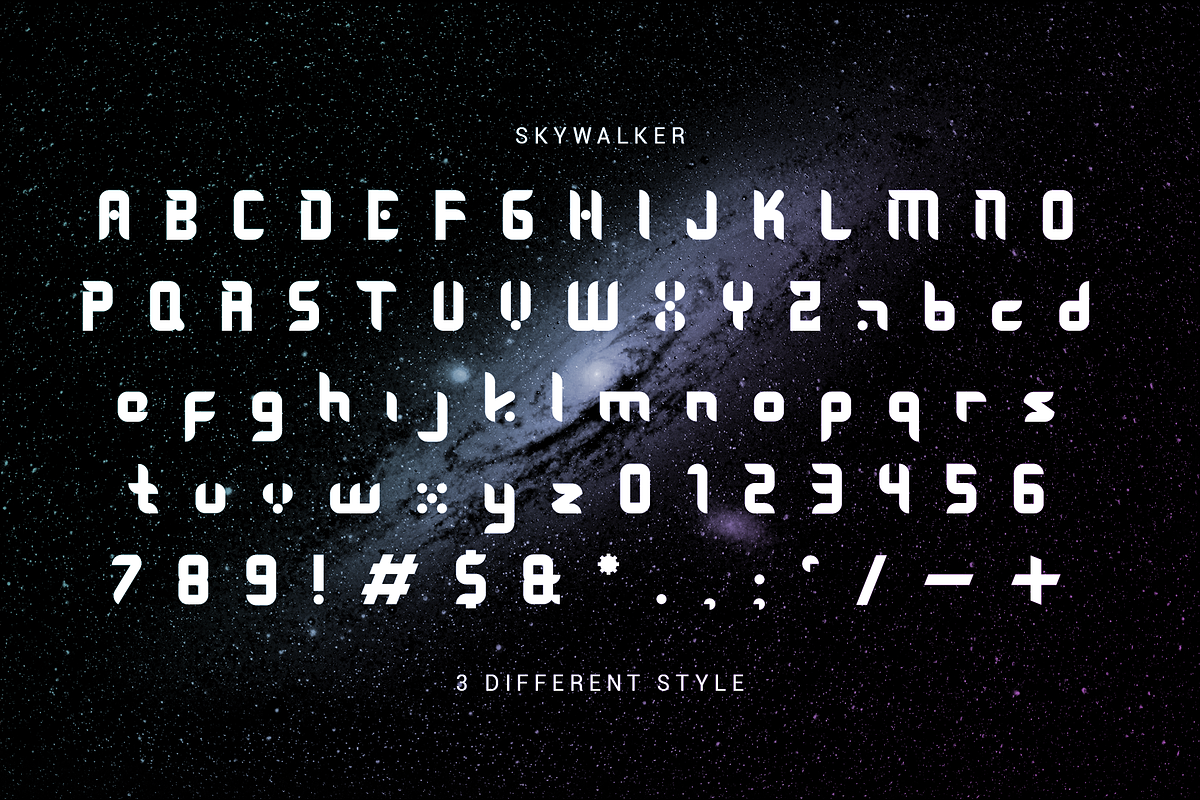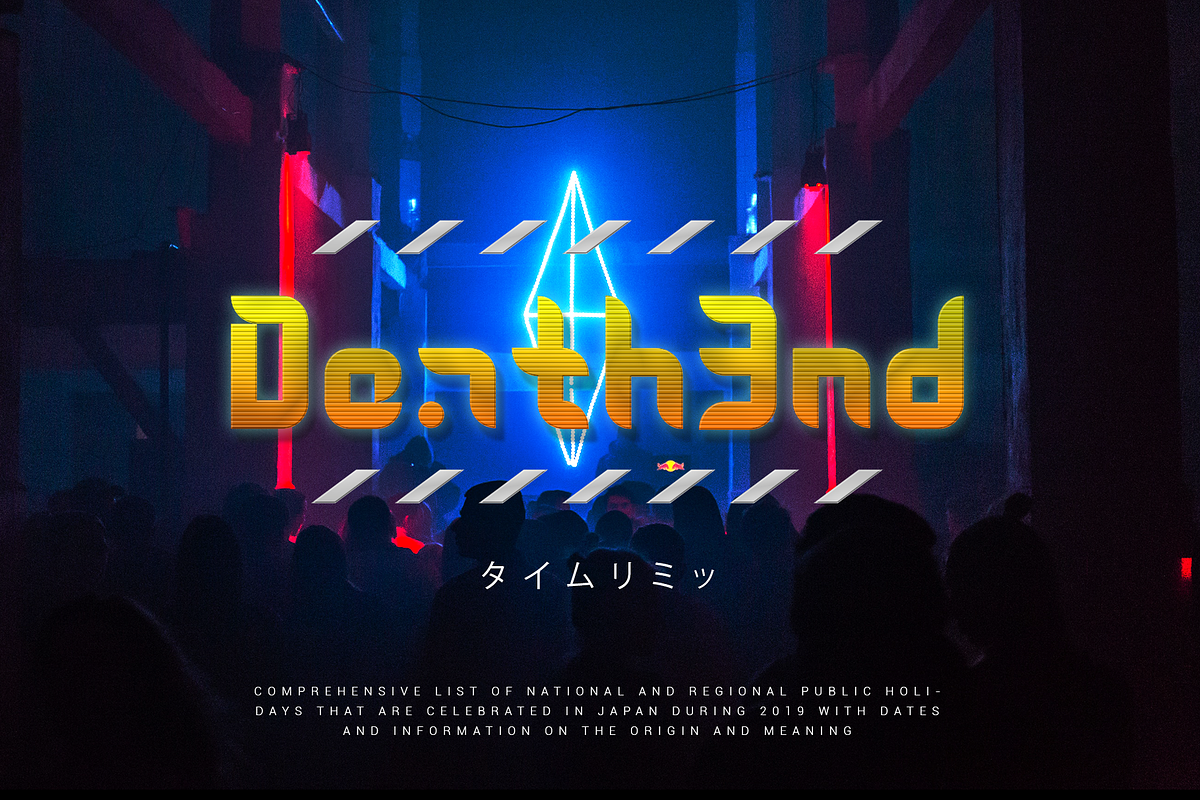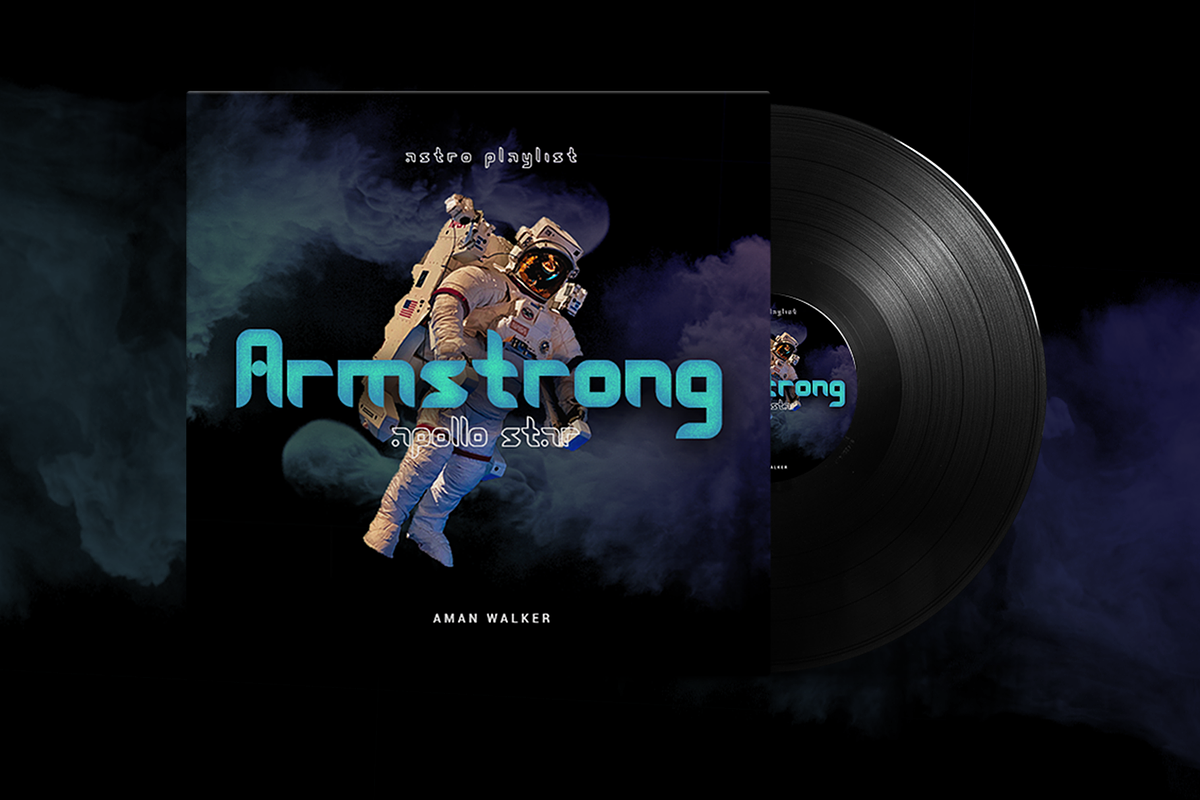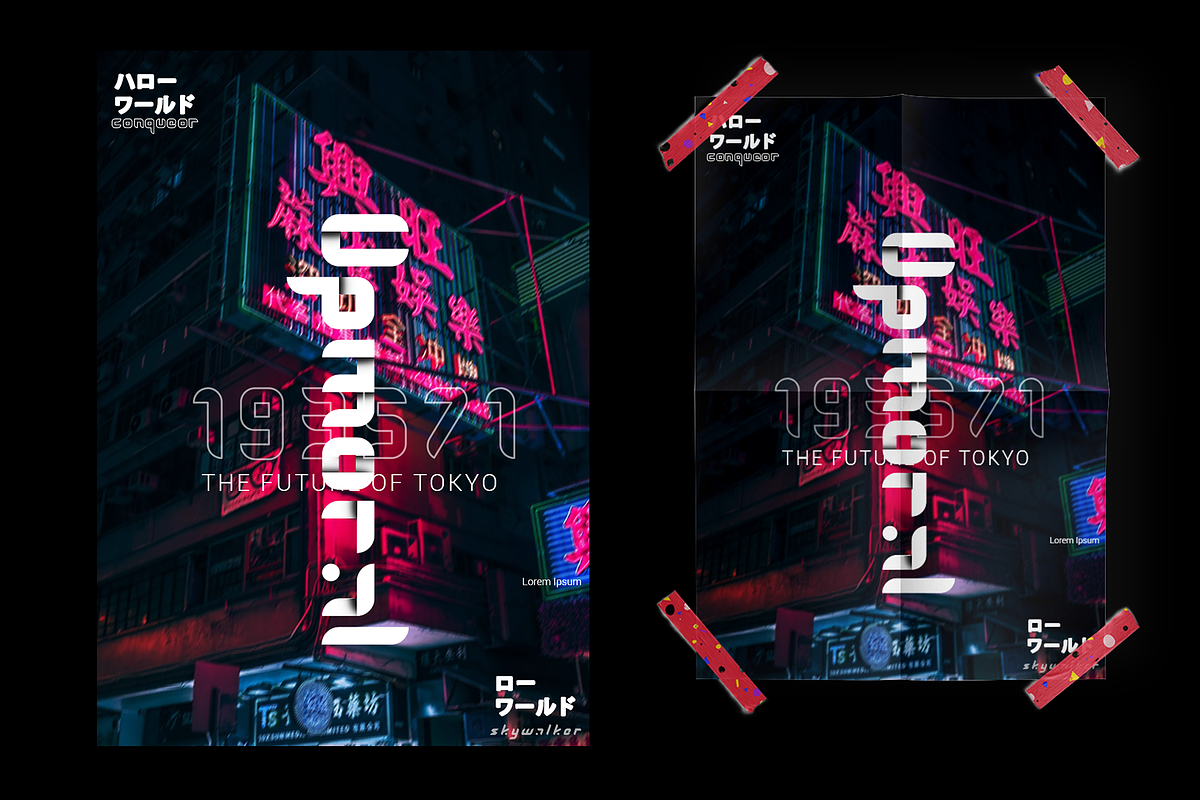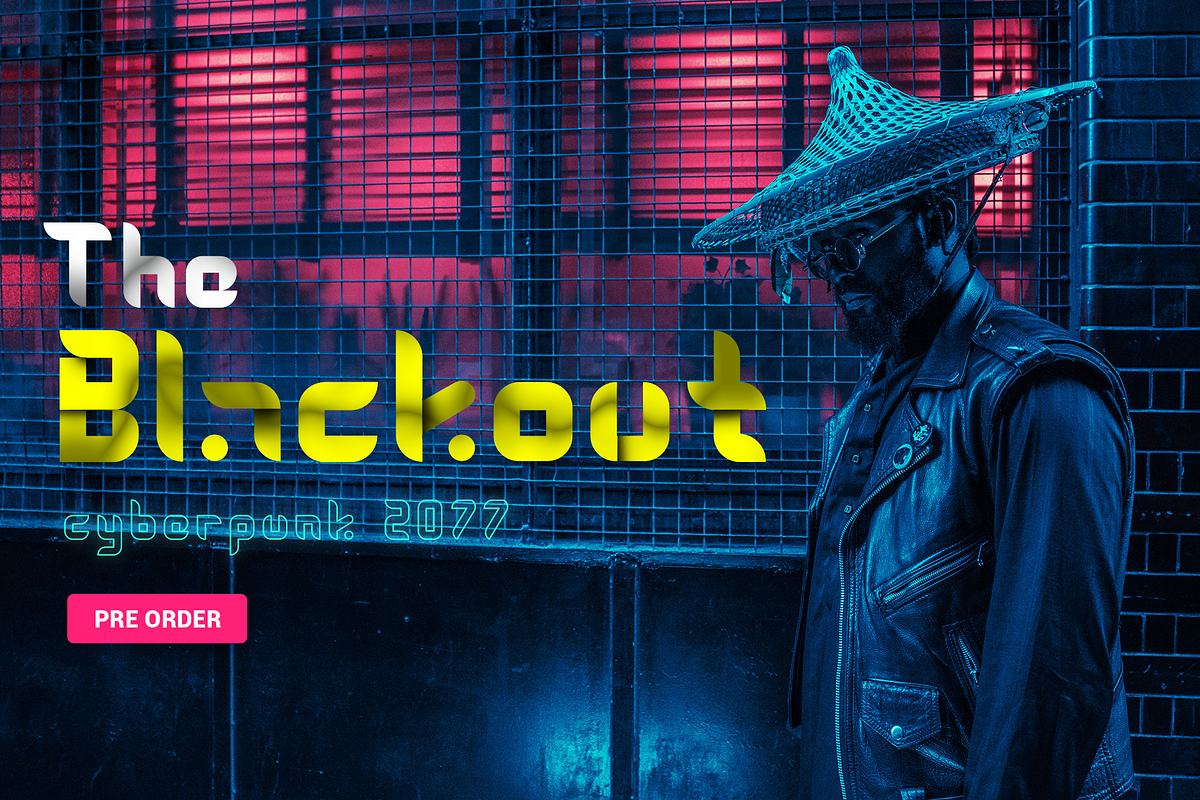
Skywalker - Futuristic
Introuduce, Skywalker Futuristic is our first font that created from modular shape and inspired form cyberpunk futuristic font. The font look fun, modern , but also futuristic. Skywalker available in 3 variants Regular, Italic and Outline.This font is suitable for display or title, basically this font is designed to be a modern writing and something related to the future and space. It can be used for posters, music covers, shirts, packaging designs, and for websites and social media.